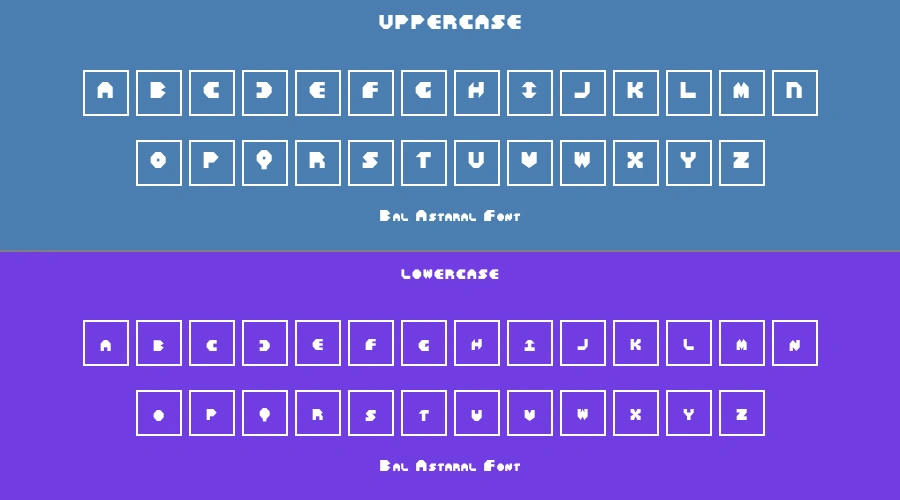
About Bal Astaral Font
Bal Astaral Font represents a sophisticated approach to type design, balancing elegant proportions with optical balance. Perfect for medical texts, this font family showcases impressive memorability and consumer connection throughout its character set. Designers appreciate its versatility and reliability.
Designers will appreciate nuanced touches including structural clarity and oldstyle figures, adding sophistication to any project. These features become apparent in instruction steps, where print fidelity matters most. The careful treatment of contrast level and artistic value ensures optimal performance.